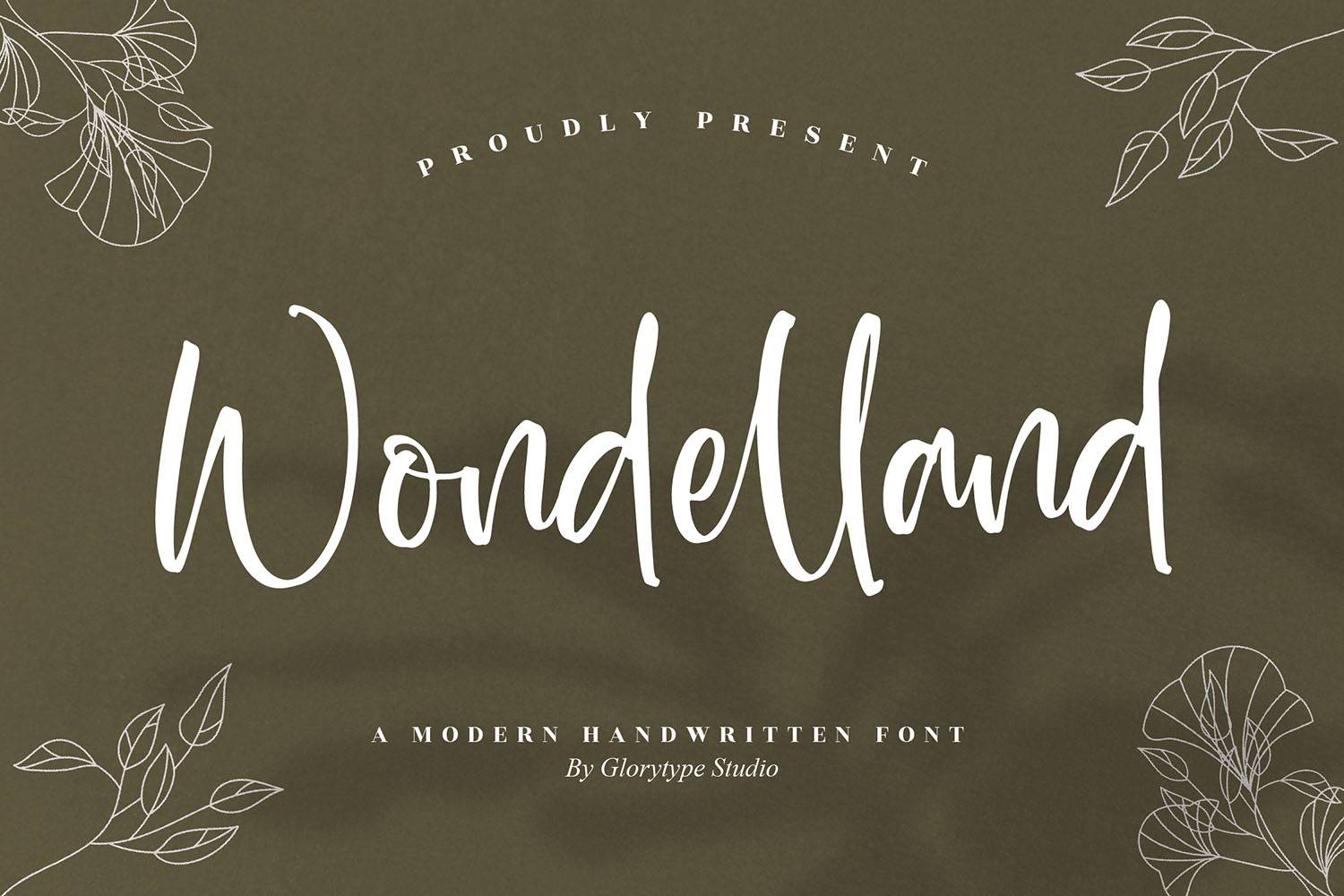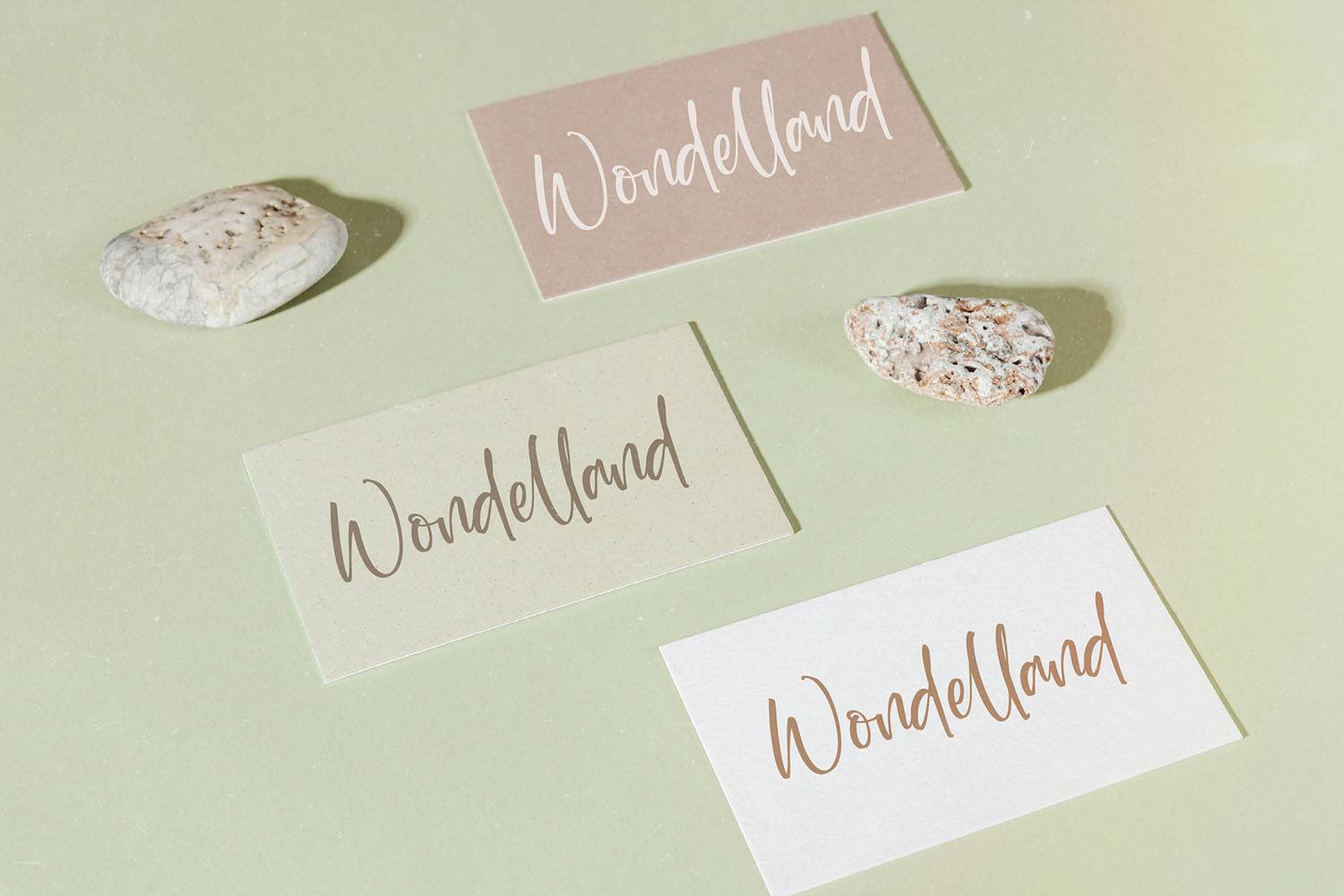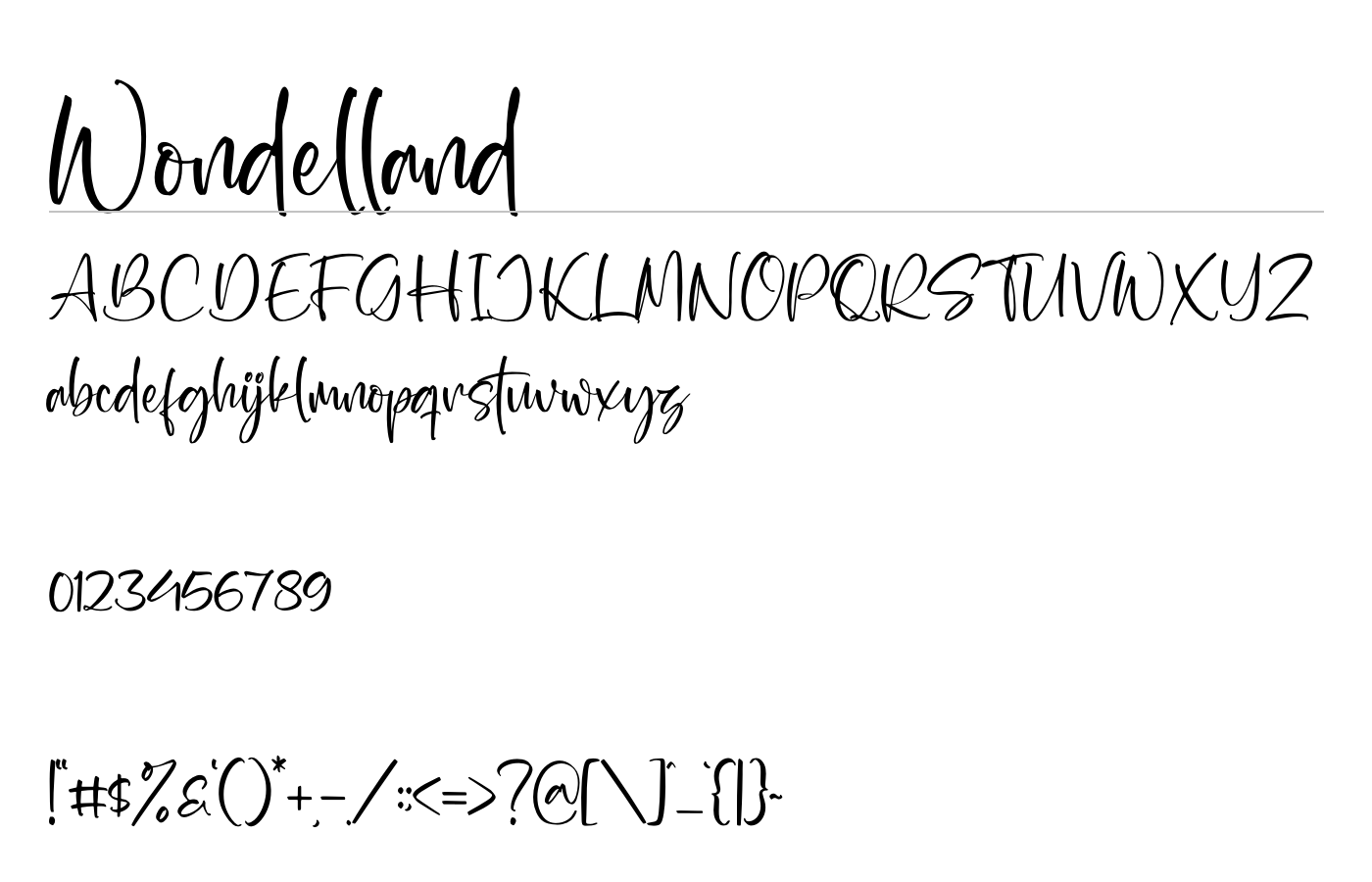
Wondelland is a playful and elegant handwritten script font featuring tall, slender letterforms with a casual yet refined flow. Its light weight and organic stroke variation give it an airy, personal feel that works beautifully for creative branding, invitations, and modern editorial designs. This font brings a friendly, approachable charm that suits projects seeking a touch of whimsy and sophistication.
Wondelland Font
About Wondelland Font